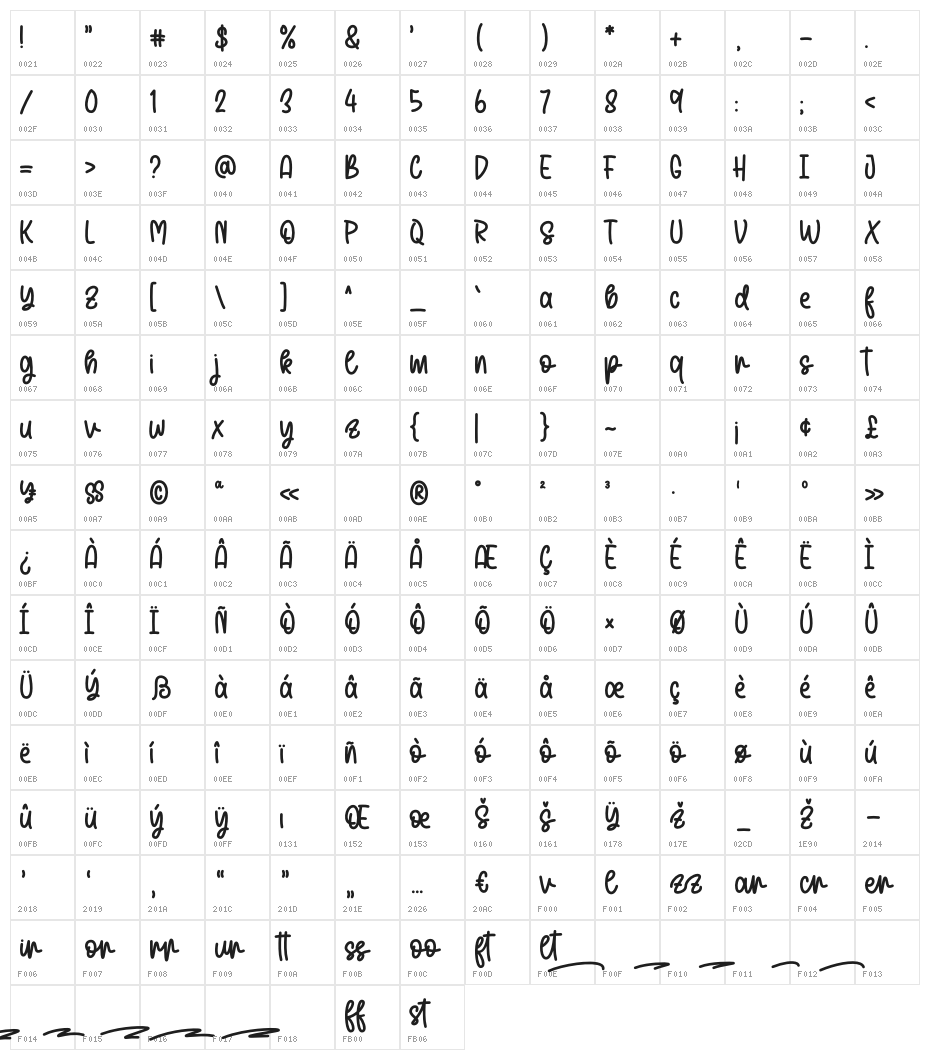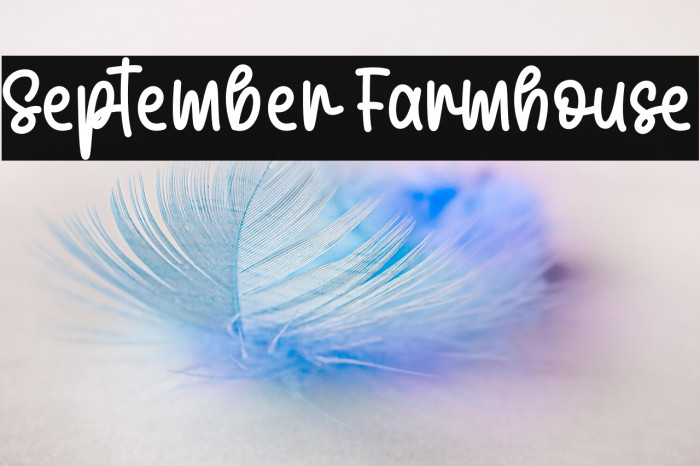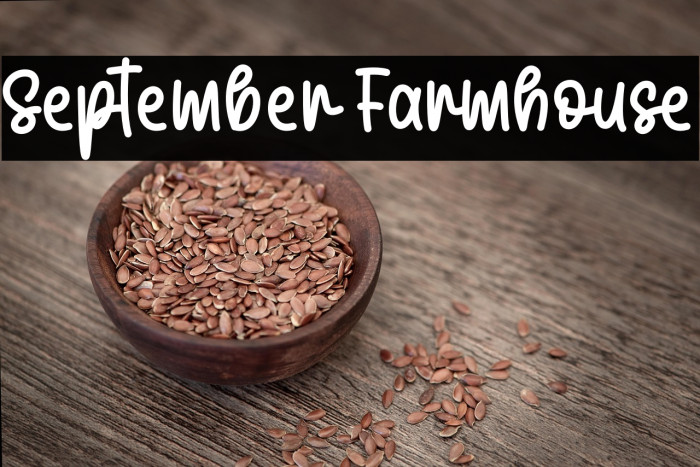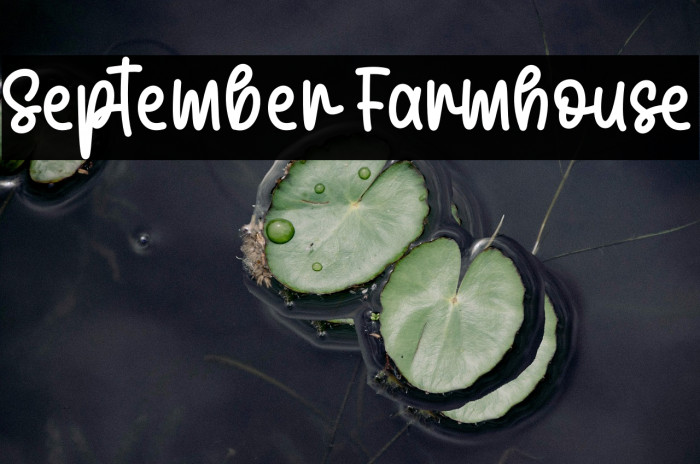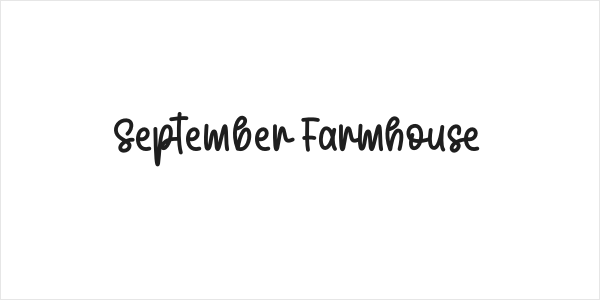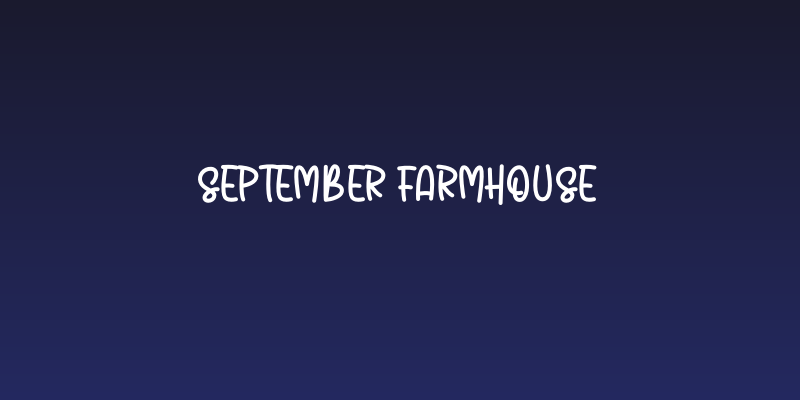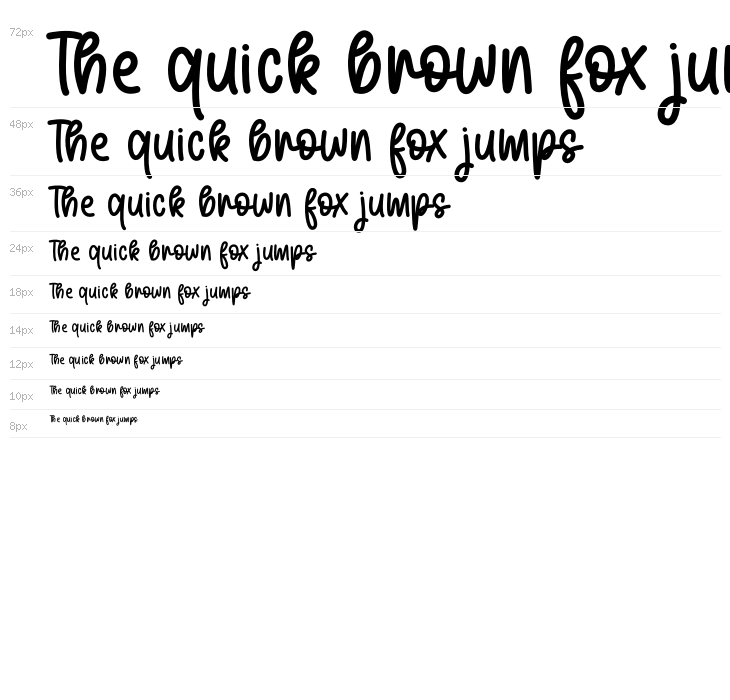
September Farmhouse Font
September Farmhouse Description
A playful, handwritten font with a casual and friendly appearance. The letters are rounded and slightly irregular, giving it a personal touch.
| Overall Style | Casual, Friendly |
| Use Case | Headlines, Informal text, Personal projects |
| Proposed Projects | Greeting cards, social media graphics, personal branding. |